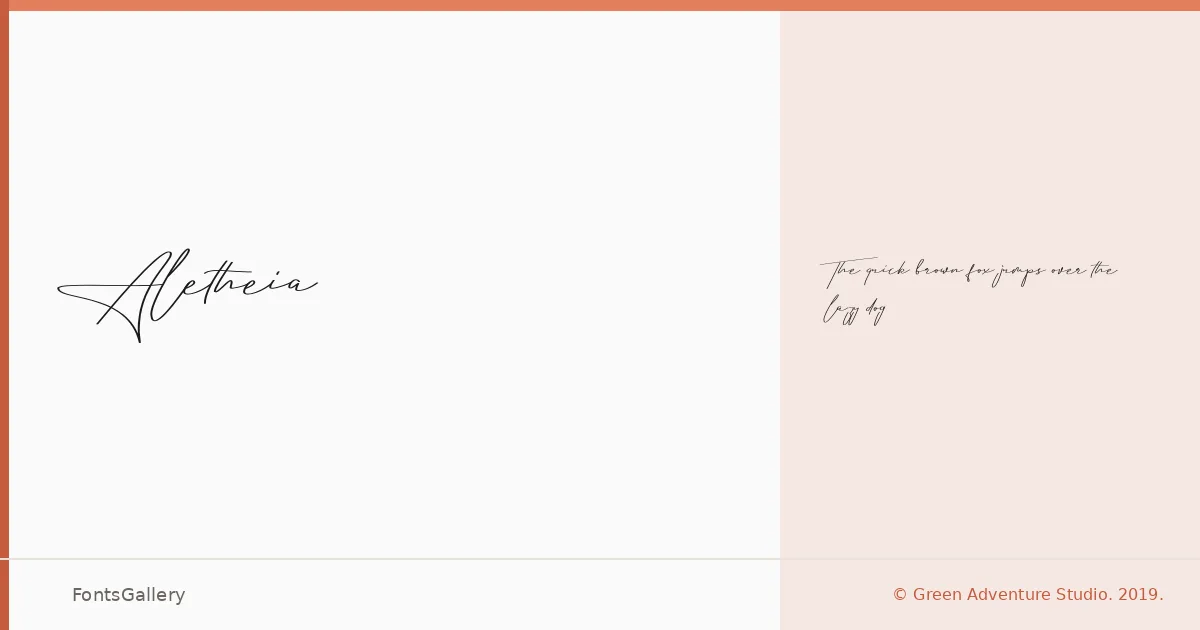
About Aletheia Font
There is a certain unhurried quality to this script — the kind of calligraphic grace that feels considered rather than decorative. Aletheia was created by Green Adventure Studio in 2019 and is available in a single Regular cut, supplied in both TTF and OTF formats.
The script sits firmly in classic, elegant territory, carrying a romantic and luxurious weight that suits formal applications well. Its Latin coverage is clean and consistent, and because it arrives as a single style rather than a sprawling family, every decision in the letterforms carries more responsibility — the curves, connections, and contrast all have to do their work without the safety net of a companion weight. In use, it reads as refined without being stiff.
Wedding stationery, invitation cards, greeting cards, and logo lockups are where this face earns its keep — anywhere the tone calls for ceremony and warmth rather than utility. For contrast, it pairs well with the editorial calm of Canela or ABC Arizona, and holds its own alongside the clean neutrality of Helvetica or Asap; Anglecia Pro offers a more period-consistent companion when the brief leans fully formal.